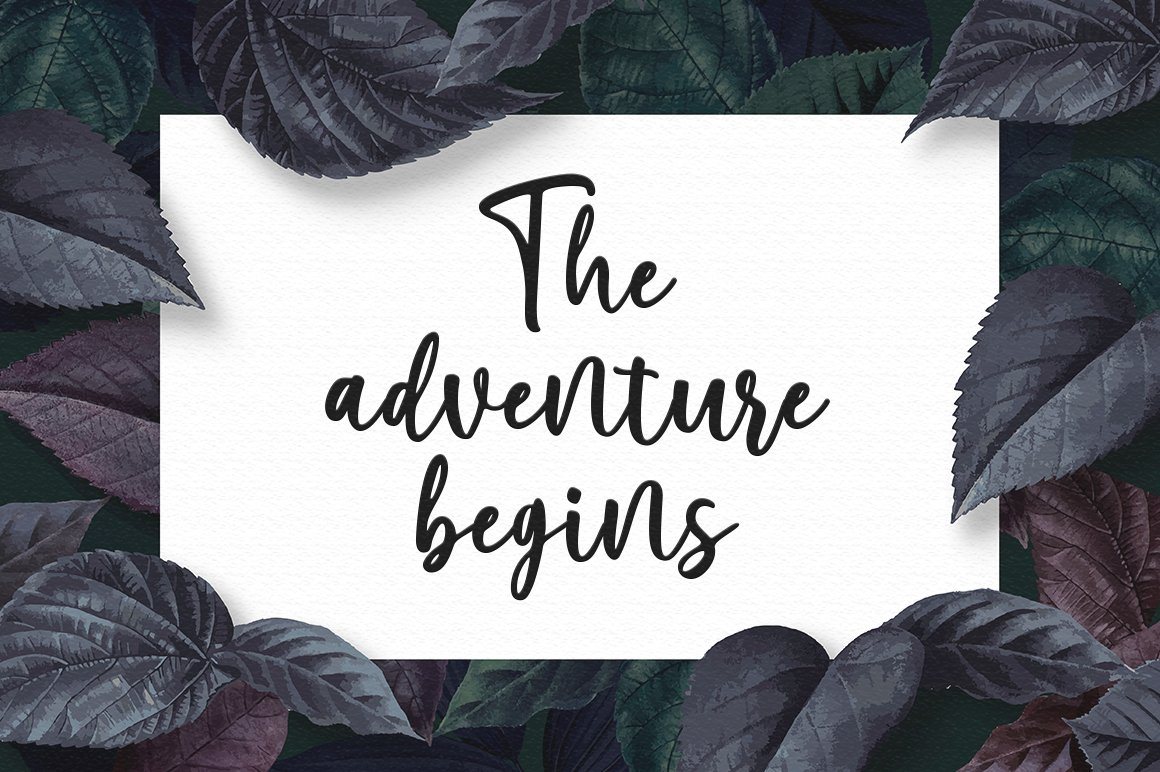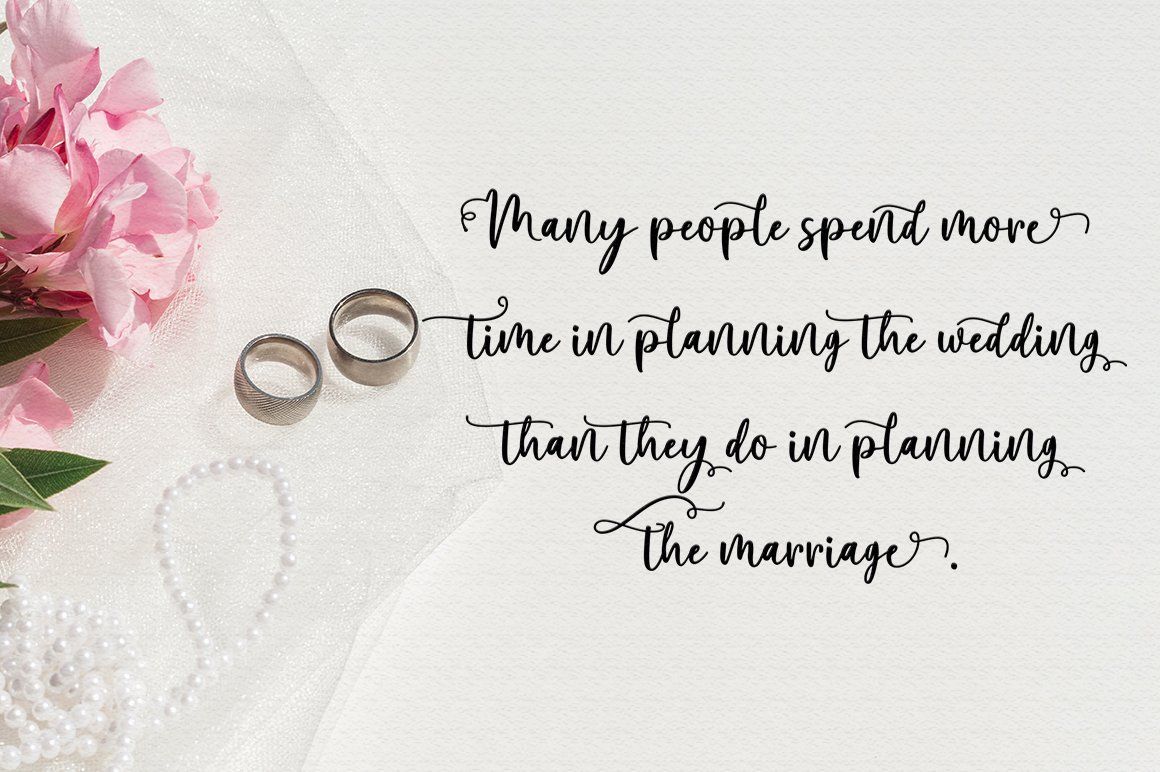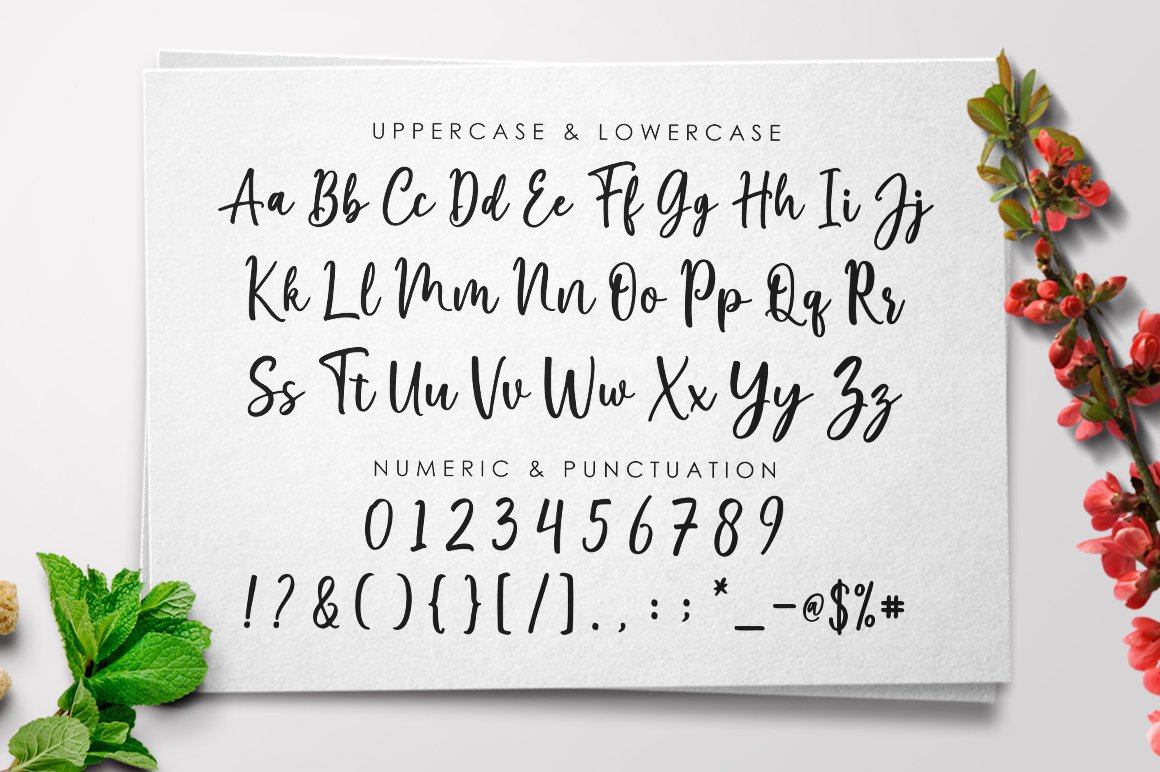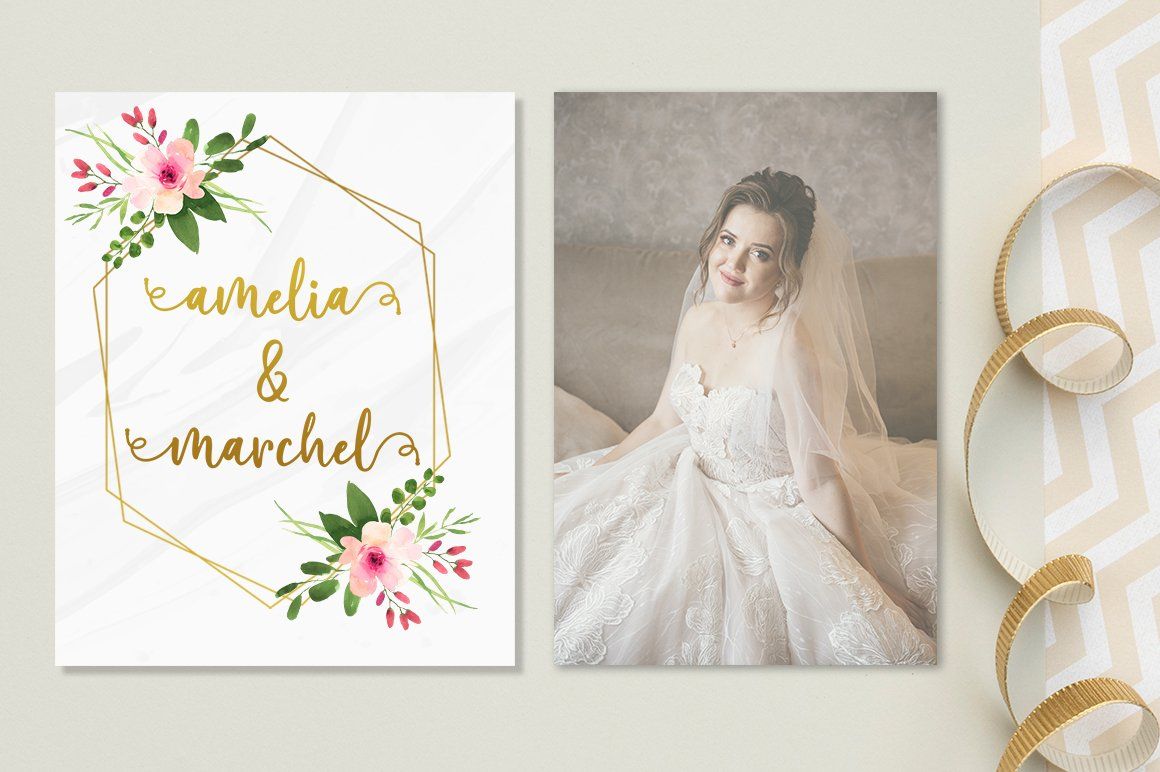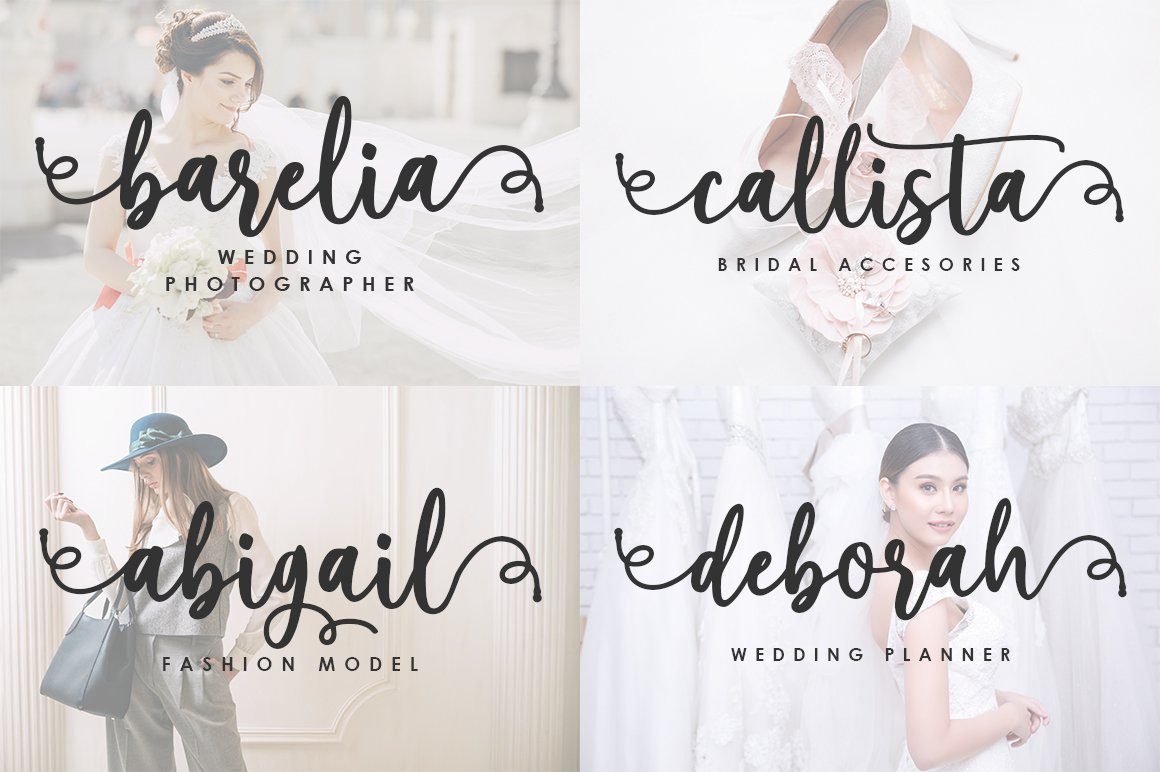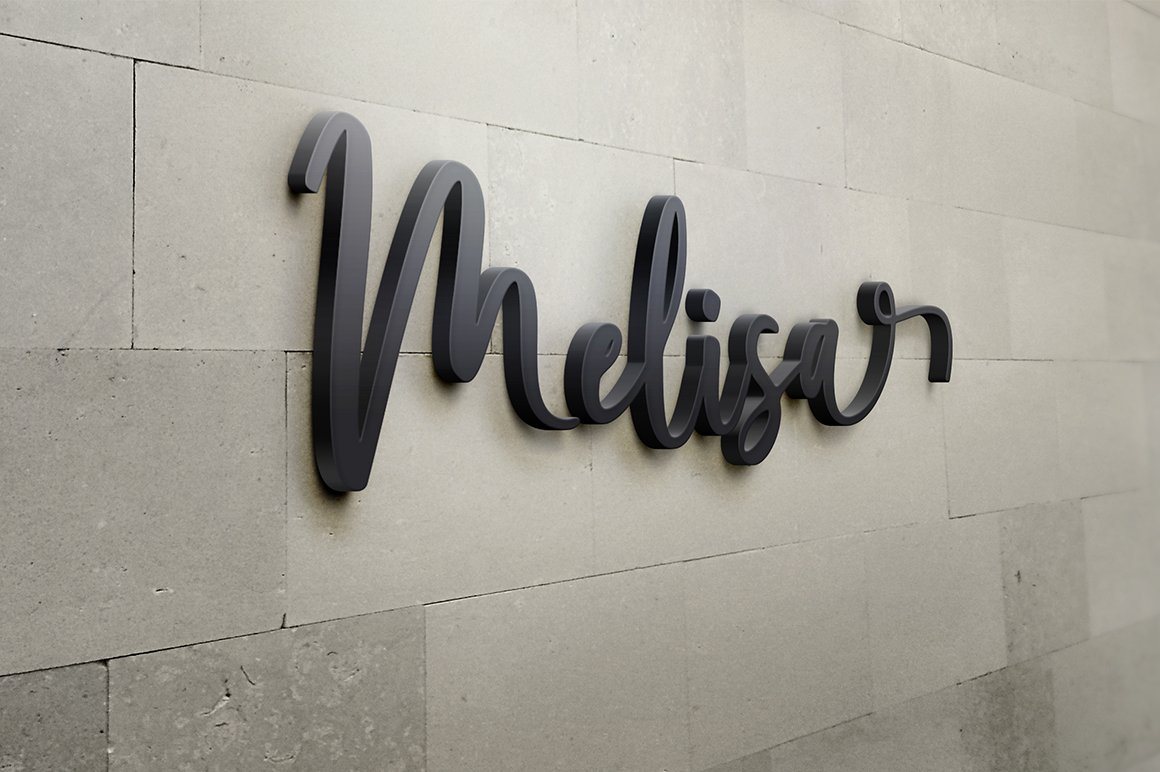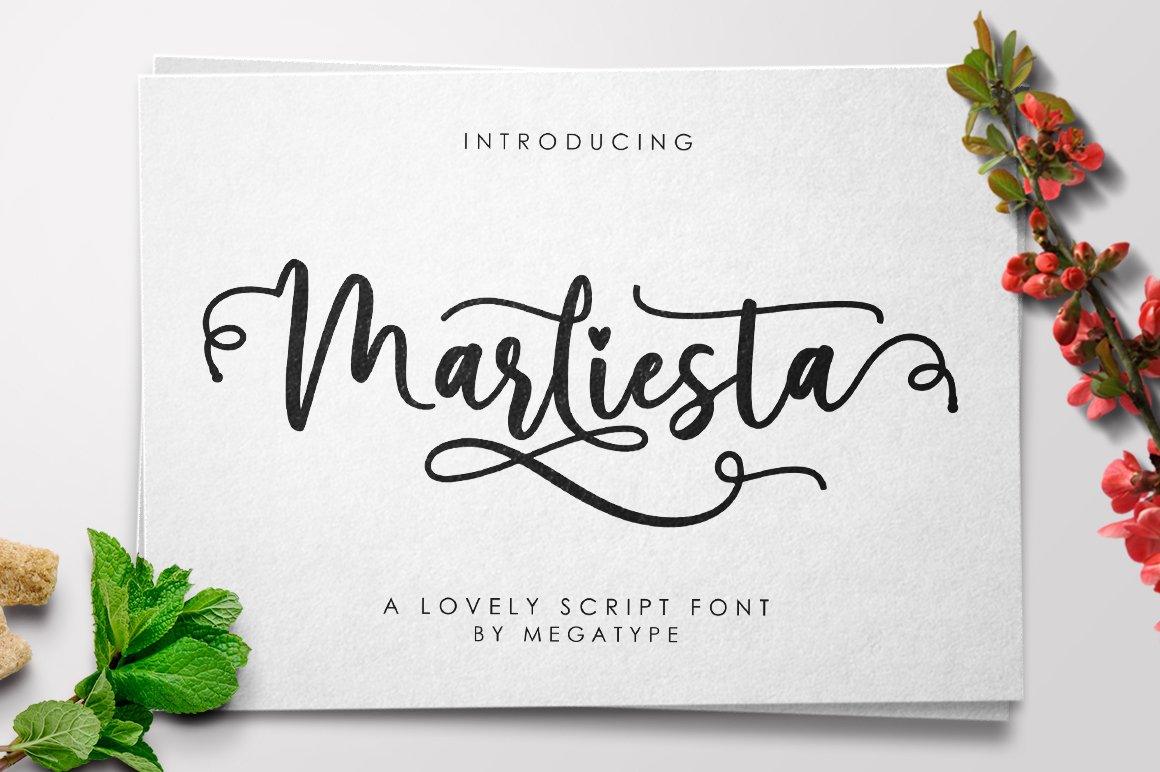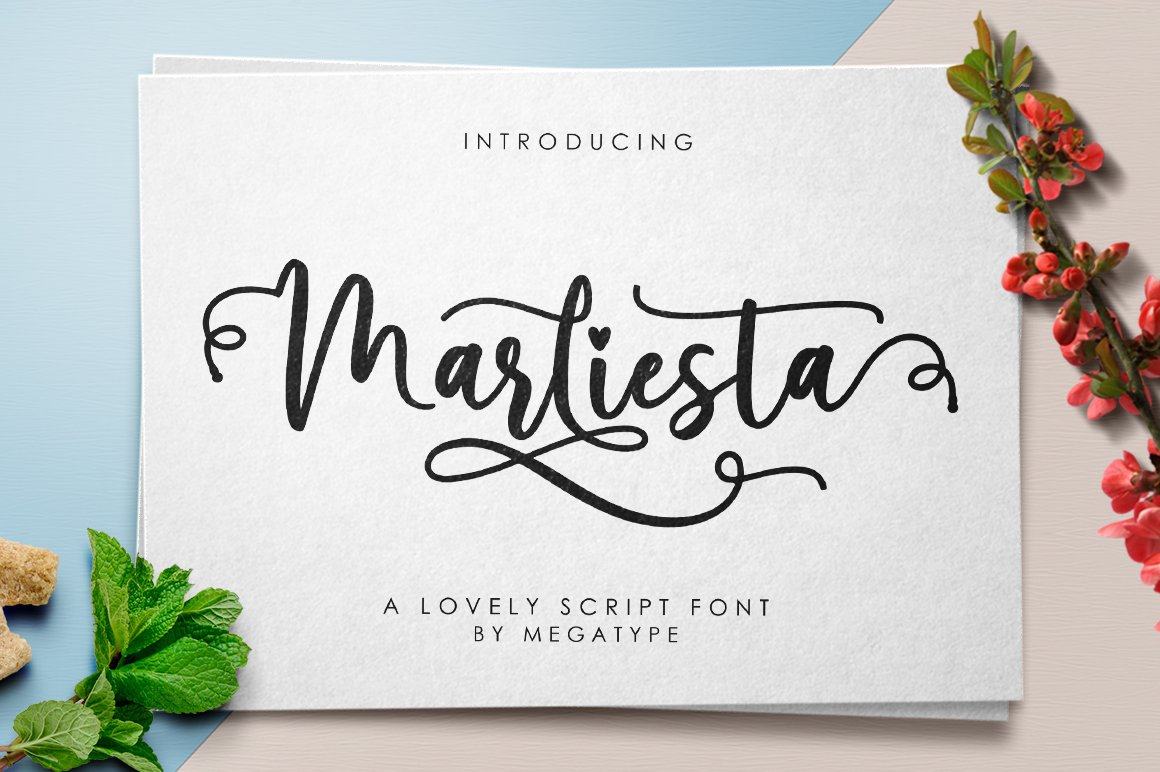
Marliesta Script Font
About Marliesta Script Font
INTRODUCING Marliesta Script is a lovely script font created with a brush and ink, it’s bold with an irregular baseline. This font is casual and pretty with swashes. Can be used for various purposes. such as logo, product packaging, wedding invitations, branding, headlines, signage, labels, signature, book covers, posters, quotes and more. Marliesta Script features OpenType stylistic alternates, ligatures and International support for most Western Languages. To enable the OpenType Stylistic alternates, you need a program that supports OpenType features such as Adobe Illustrator CS, Adobe Indesign & CorelDraw X6-X7, Microsoft Word 2010 or later versions. How to access all alternative characters using Adobe Illustrator: https://www.youtube.com/watch?v=XzwjMkbB-wQ Marliesta Script is coded with PUA Unicode, which allows full access to all the extra characters without having special designing software. Mac users can use Font Book , and Windows users can use Character Map to view and copy any of the extra characters to paste into your favorite text editor/app. How to access all alternative characters, using Windows Character Map with Photoshop: https://www.youtube.com/watch?v=Go9vacoYmBw Thanks so much for looking and enjoy it!